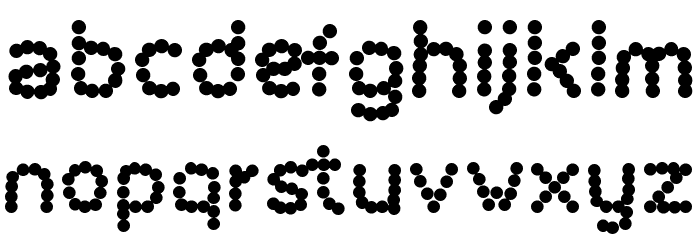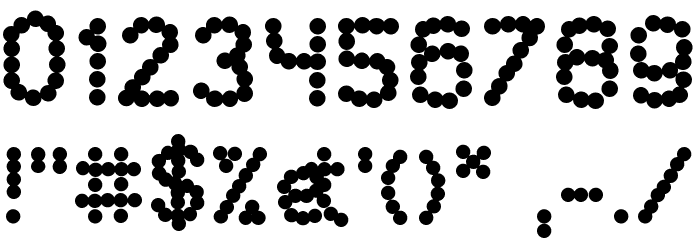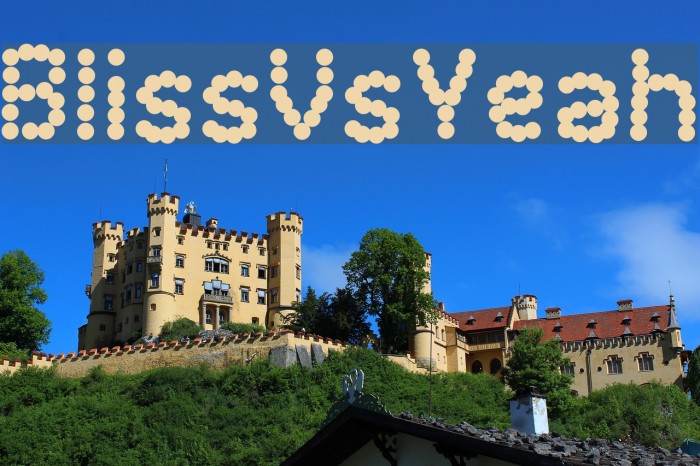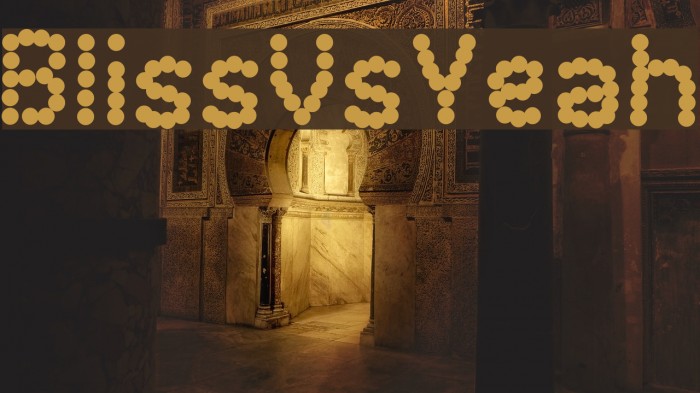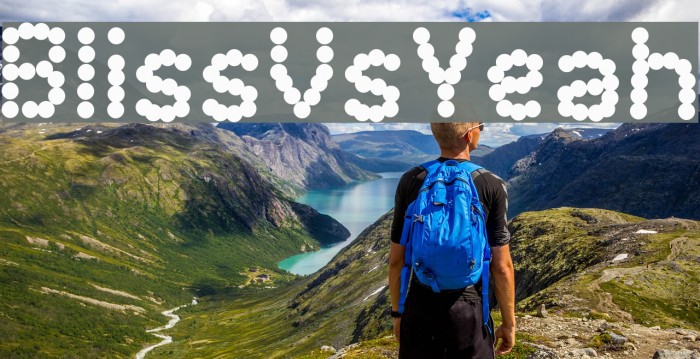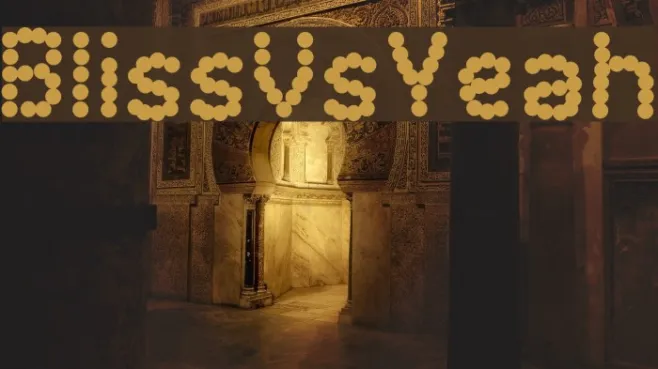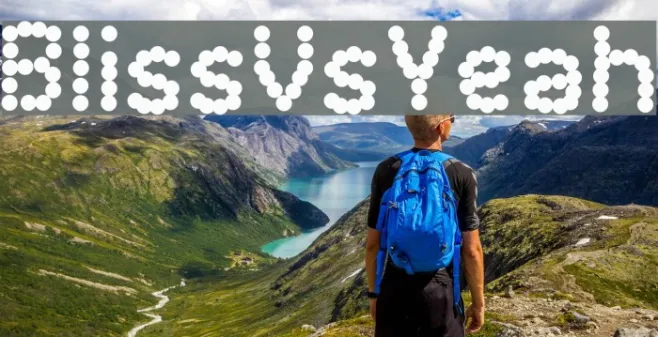
BlissVsYeah Font
This font features a unique design where each character is composed of small, evenly spaced dots, creating a digital or pixelated effect. The characters maintain a consistent size and shape, giving the font a uniform appearance. The rounded dots provide a playful and modern aesthetic, making it stand out as a decorative choice. The font includes both uppercase and lowercase letters, numbers, and a variety of special characters, all adhering to the same dotted style. Its distinct look is ideal for projects that require a futuristic or tech-inspired theme.
A dotted, pixelated font with a modern and playful aesthetic.
- Proposed Projects: Ideal for digital art projects, tech-themed designs, futuristic branding, or playful event invitations.